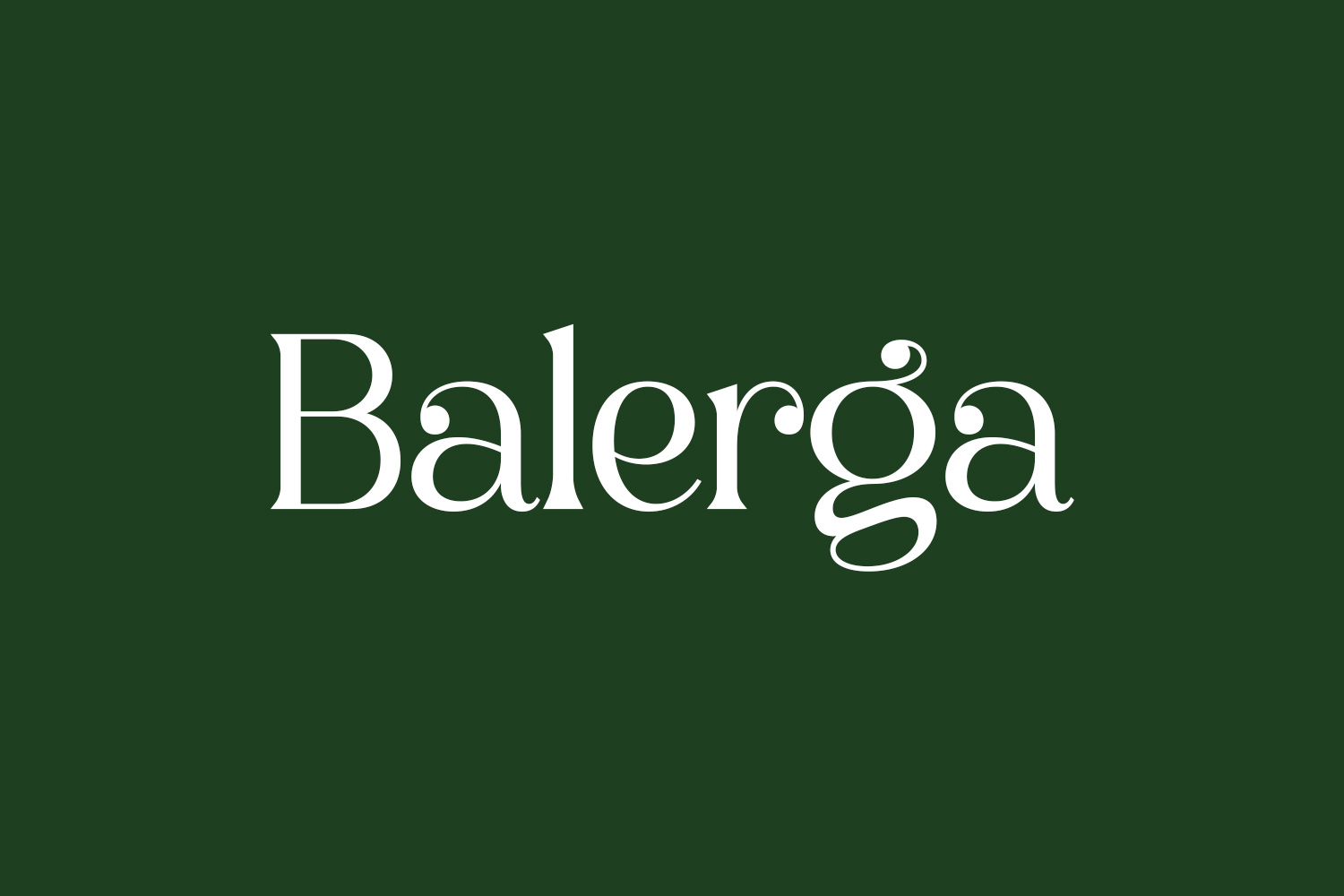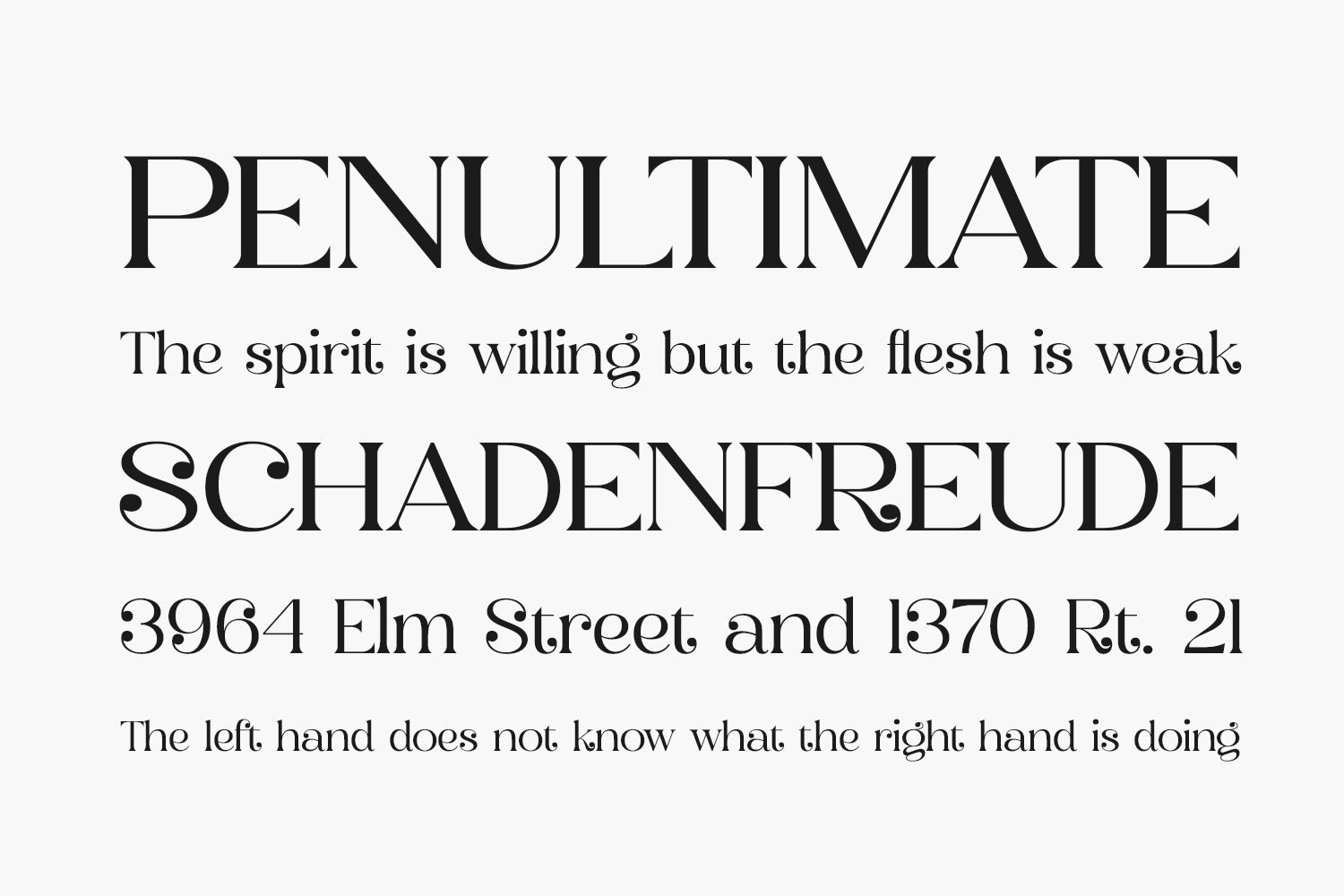
Elevate your projects with Balerga Free Font, a serif font that blends style and luxury seamlessly. Infused with just the right touch of trendiness, this font is the perfect choice to instantly elevate the impact of any project you aim to create. Balerga Free Font is free for personal use only. Please purchase the full version for commercial use.